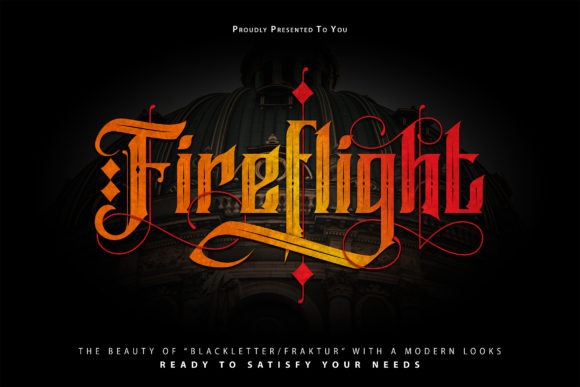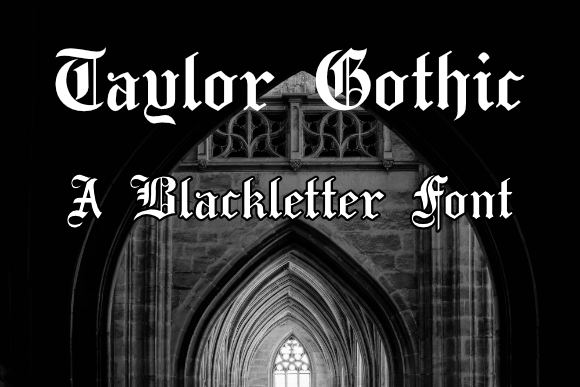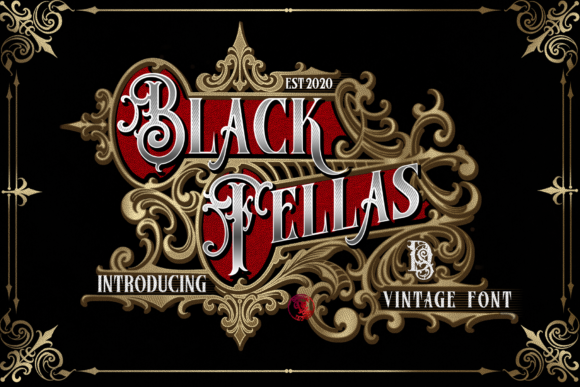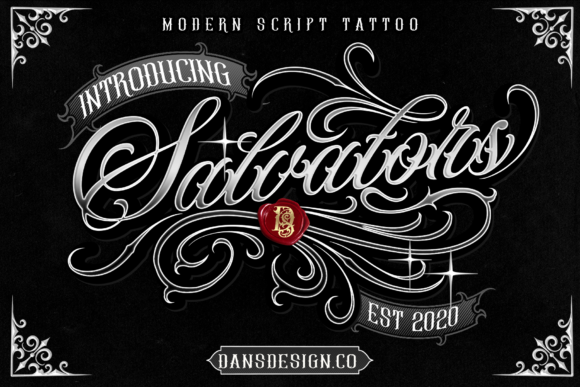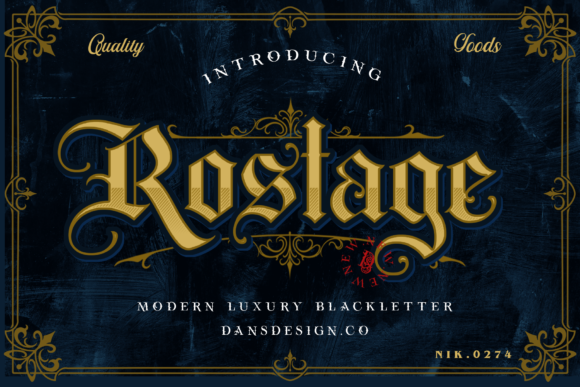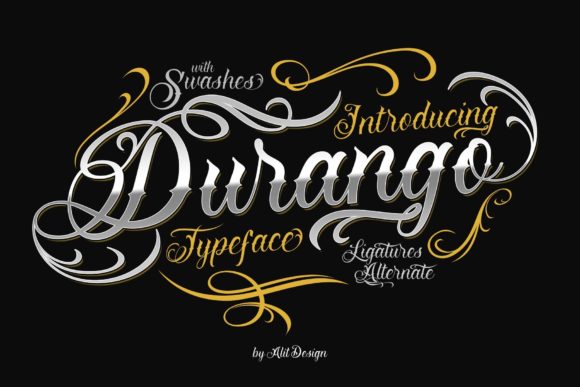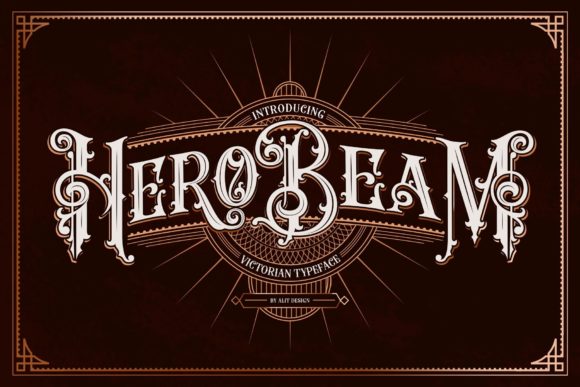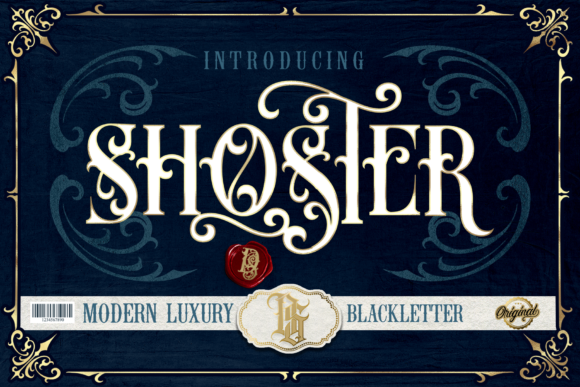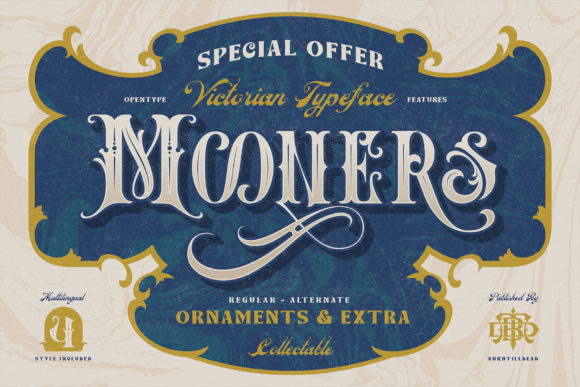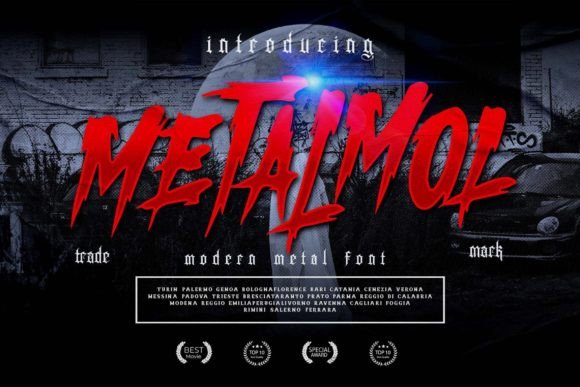
24 Blackletter Fonts for Modern Branding and Bold Designs
Blackletter Fonts & Typography
Discover bold blackletter and Gothic fonts for logos, apparel, tattoo-inspired designs, labels, posters, packaging, alternative brands, and distinctive visual identities.
Blackletter typography is instantly recognizable for its dramatic, historic, and highly expressive character. From traditional Gothic and Old English lettering to contemporary tattoo and metal-inspired styles, blackletter fonts can give a logo or design a powerful identity while creating a strong visual connection to a specific aesthetic.
How to Choose a Blackletter Font
Blackletter fonts vary considerably in their visual character. Some have a traditional medieval or Old English appearance, while others are more contemporary, condensed, decorative, tattoo-inspired, or influenced by alternative and metal aesthetics.
Start by considering the personality of your project. A classic blackletter can work well for heritage-inspired branding, while a heavier contemporary style may be more appropriate for apparel, music, tattoo-inspired artwork, or alternative brands.
Readability is also important. Highly detailed blackletter fonts can look impressive at large sizes, but simpler lettering may work better when a logo needs to remain recognizable on small labels, websites, social media profiles, or merchandise.
24 Blackletter Fonts
This collection includes traditional Gothic and Old English styles alongside modern blackletter fonts with Victorian, tattoo-inspired, decorative, athletic, and alternative influences. Use them for branding, logos, apparel, posters, packaging, labels, and other bold display projects.
01 · Victorian Gothic
Brother Gothic
Brother Gothic combines a bold Victorian character with a strong Gothic appearance. Its distinctive lettering is particularly useful when a brand identity needs a powerful and memorable display style.
02 · Victorian Blackletter
Hero Beam
Hero Beam is a Victorian-inspired blackletter with a strong display presence. Its bold forms make it useful for designs where the typography itself needs to become a major part of the visual identity.
03 · Bold Gothic
Fireflight
Fireflight is a bold and distinctive blackletter style designed to create strong visual impact. Its dramatic appearance can help branding, apparel, posters, and display typography stand apart.
04 · Traditional Gothic
Taylor Gothic
Taylor Gothic has a traditional blackletter character with bold, authentic-looking forms. It is a natural direction for projects that need classic Gothic typography with a strong visual presence.
05 · Stylish Blackletter
Black Fellas
Black Fellas brings a stylish blackletter character to modern graphic design. Its expressive forms can create distinctive typography for branding, quotes, business cards, apparel, and promotional materials.
06 · Dramatic Gothic
The Mariam Story
The Mariam Story has a dramatic blackletter appearance with imposing Gothic forms. It can give typography a strong historical and expressive quality, especially when used as large display text.
07 · Ornate Gothic
Durango
Durango is a highly detailed Gothic blackletter with decorative character and expressive swashes. It is especially useful for designs where intricate lettering is intended to become the central visual element.
08 · Poster Gothic
Rostage
Rostage is a bold blackletter style designed to create a strong presence in labels, advertising, posters, and display compositions. Its heavy character works especially well when typography needs to dominate the layout.
09 · Detailed Gothic
Numero
Numero has a detailed and assertive Gothic appearance. Its blackletter forms can create a strong visual identity for logos, posters, apparel, labels, merchandise, and other display-focused designs.
10 · Victorian Blackletter
Shoster
Shoster combines an authentic Victorian blackletter feeling with vintage decorative details and swashes. Its historical character can bring a distinctive look to branding, apparel, posters, labels, and packaging.
11 · Old English
Black Old English
Black Old English has thick, bold forms inspired by classic Old English and blackletter typography. Its strong silhouette makes it particularly effective when used for large headlines, logos, apparel, badges, and statement graphics.
12 · Classic Old English
Vintage Old English
Vintage Old English delivers a classic blackletter appearance inspired by traditional Old English typography. Its historical character makes it useful for banners, shirts, stationery, social graphics, logos, and vintage-inspired branding.
13 · Ornate Blackletter
Ornate Gothic
Ornate Gothic combines antique-inspired blackletter forms with a decorative and bold appearance. It can add historical character to branding, packaging, labels, posters, and designs that need a strong Gothic atmosphere.
Can blackletter fonts be used for modern branding?
Yes. Blackletter can be combined with modern layouts, clean supporting typography, contemporary colors, and minimal graphic elements to create a visual identity that references traditional lettering while still feeling current.